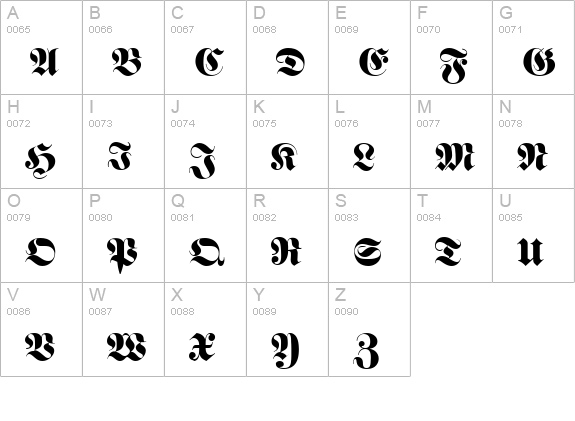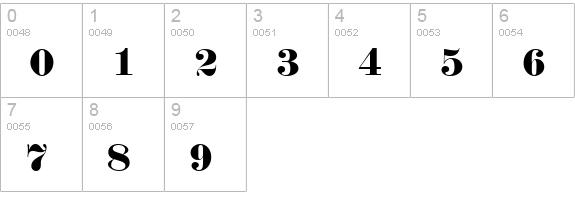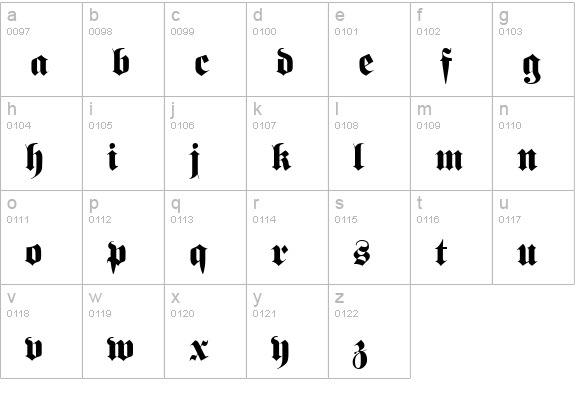
QTFraktur Regular Font Details
QTFraktur Regular is the standard, neutral variant in the QTFraktur typeface family \xE2\x80\x94 well suited to general body text, paragraphs, and standard typographic work.
QTFraktur Regular font is a stunning typeface that perfectly captures the essence of traditional Fraktur calligraphy. Its intricate and angular letterforms evoke a sense of history and elegance, making it an ideal choice for projects that require a touch of vintage charm. This font features meticulous attention to detail, with each character meticulously designed to ensure visual harmony and readability. The sharp edges and ornate flourishes give QTFraktur Regular font a distinctive and timeless appeal. What sets QTFraktur Regular font apart is not just its exceptional design, but also its accessibility. It is freely available to download at FontsMarket.com, allowing users to effortlessly incorporate this beautiful typeface into their designs without any cost. Whether you're working on a personal project or a professional endeavor, QTFraktur Regular font offers the perfect blend of artistic expression and functionality. With its versatility and wide range of potential applications, QTFraktur Regular font is suitable for various design projects. From vintage-inspired invitations and book covers to elegant logos and signage, this font brings a touch of sophistication to any visual composition. Whether you're a designer, a typographer, or simply someone with an appreciation for exquisite typography, QTFraktur Regular font is a must-have addition to your font collection. Download it for free at FontsMarket.com and unlock the endless creative possibilities that this font has to offer.